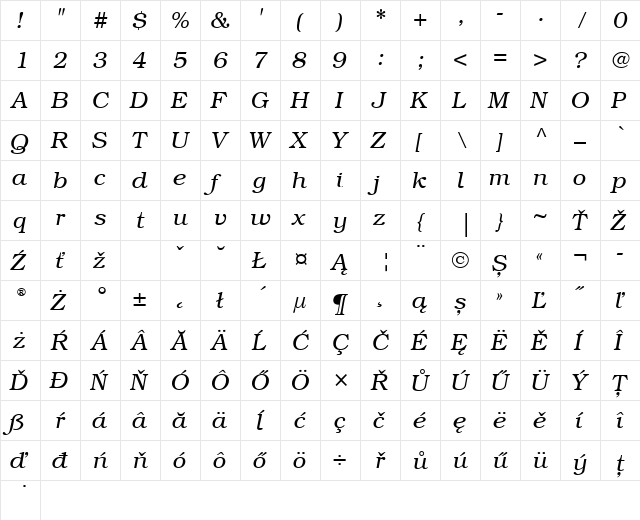
Bookman CE Light Italic
Design Context for Bookman CE Typeface
Bookman CE takes a measured approach to typography — its balanced proportions and neutral character make it a reliable workhorse for both digital and print work. The dynamic lean of this cut emphasises speed and emphasis in any layout. Its slender proportions lend an understated elegance to any composition.
Pro Tip: Try Bookman CE for annotation and caption copy alongside an upright companion — the contrast in angle creates a dynamic but ordered typographic system.